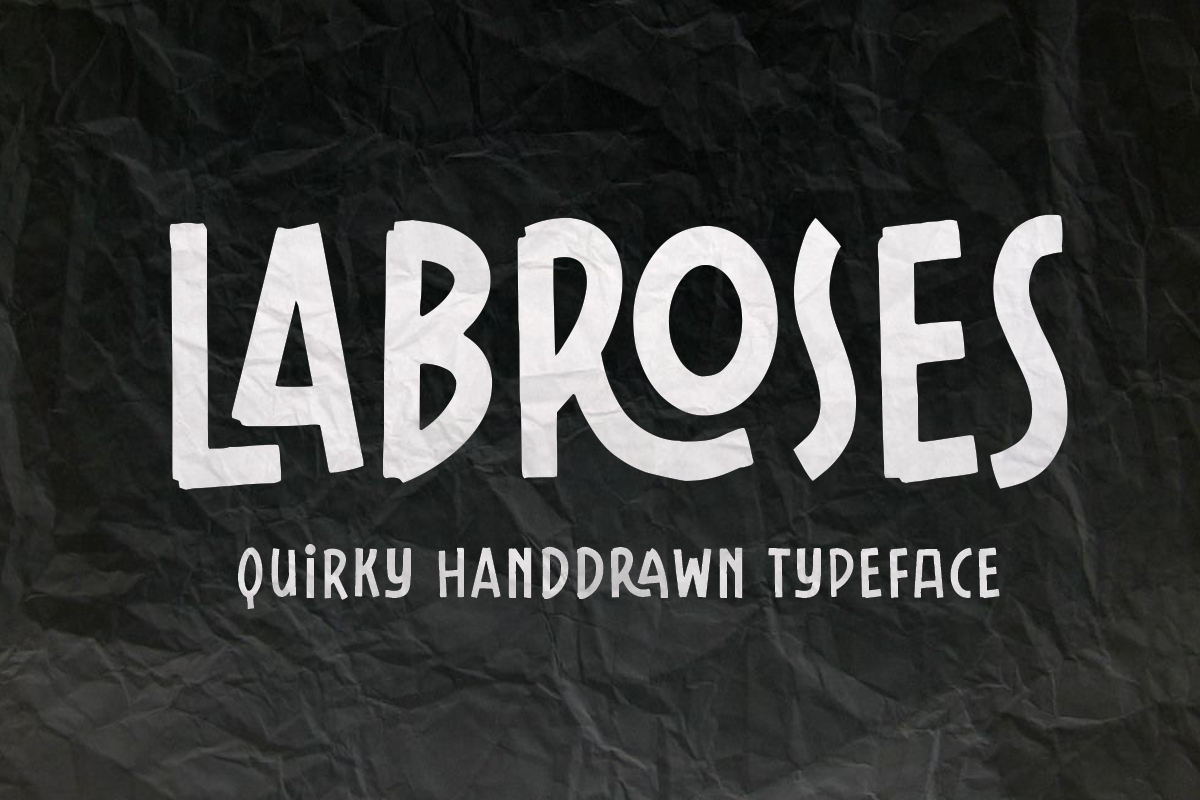
Labroses Quirky Typeface Free Download
Labroses Quirky Typeface Free Download is a playful and unique font that combines bold, quirky letterforms with a charming, whimsical vibe. Perfect for creative projects, this typeface works beautifully for logos, posters, branding, social media graphics, and any design that requires a fun and expressive feel.
The font’s distinctive and irregular shapes give it a lively, hand-crafted quality that’s sure to make your design stand out. Whether you’re creating eye-catching headlines, fun invitations, or a playful brand identity, Labroses adds a touch of personality and creativity to your work.